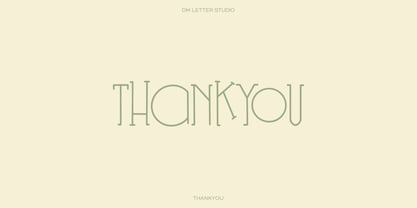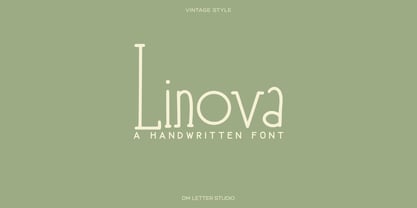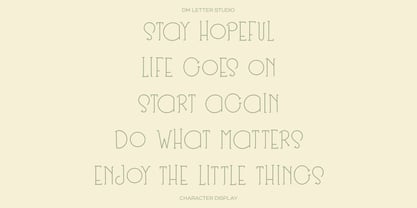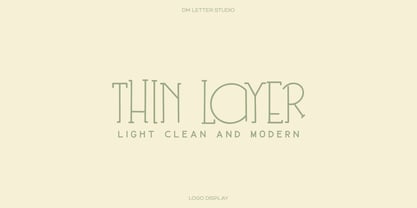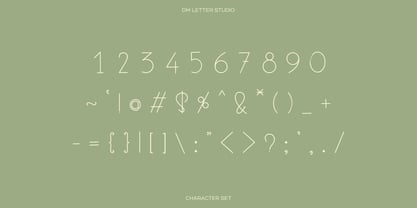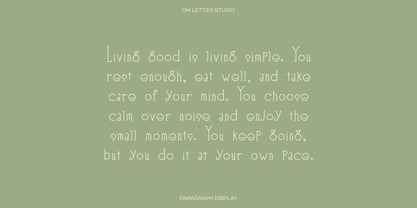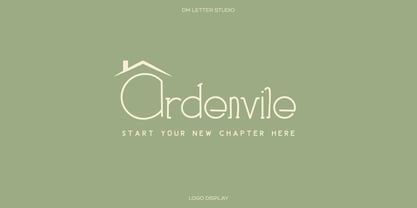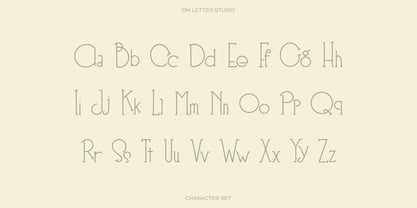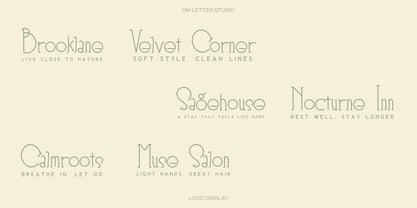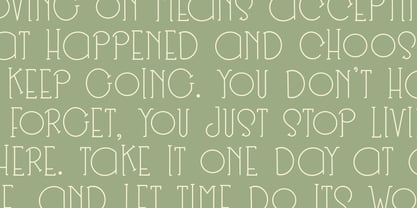
Linova
Die Schriftfamilie Linova wurde von Dimas Prasetyo entworfen und von DM Studio veröffentlicht. Linova enthält 1 Stile. Mehr über diese Familie
Meet Linova, the Thin Modern Handwriting Font Linova is a thin modern handwriting font with a clean, relaxed flow that feels natural and refined. The strokes are light and consistent, giving your text a soft human touch without losing clarity. Because the lines stay slim and balanced, Linova reads beautifully at small sizes while still looking elegant in larger layouts. Use it for logos, quotes, branding, social media posts, stationery, packaging accents, and minimalist designs. As a result, your work feels personal, calm, and contemporary. Why Linova Handwriting Font sells First, it installs easily and works smoothly in Canva, Photoshop, Illustrator, and most design apps. Next, the thin strokes export cleanly for print and digital use. Then layouts feel faster because the letterforms are simple and predictable. Moreover, Linova pairs perfectly with modern sans fonts and clean serifs, which helps you build balanced designs without visual noise. Therefore, it’s a great fit for creators who want subtle personality with a polished finish. Fast layouts with the Linova Font Start with short phrases or names and let the spacing breathe. After that, combine Linova with a neutral font for body text or details. Because Linova stays legible at small sizes, it works well for captions, tags, and signature-style elements. In addition, it shines in minimalist layouts, soft grids, and negative space designs. Finally, try color pairs like charcoal & white, blush & taupe, sage & cream, or ink & linen for a modern look. Creative uses and quick wins Logo accents, signatures, and brand quotes Instagram captions, story text, and overlays Wedding stationery details and personal notes Packaging accents, labels, and thank-you cards What you get Uppercase and lowercase letters Numbers and basic punctuation Design tips for Linova Handwriting Font Keep text short so the thin strokes stay clear. Also, increase letter spacing slightly for small sizes to improve readability. For print, use light backgrounds to let the lines stand out. Finally, export at 300 DPI for print and at 2× size for web so everything stays crisp.